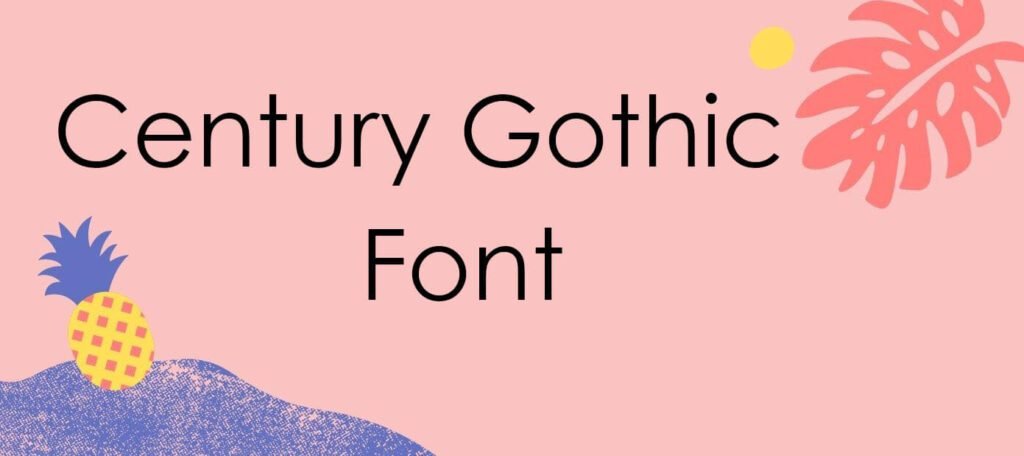
Century Gothic Font is a sans-serif typeface that has been highly used for advertisement purpose since it releases. It is an elegant typeface that is based on an extended Gothic family. The font family came into being many years ago, after which several Versions and styles originated. The Century Gothic font is one of them that is highly used and highly recommended for different purposes.
Sol Hess, a popular typeface designer, designed this font in the late 19302 that was released by Monotype Foundry. Soon after it became public, it became everyone’s Priority and started being used everywhere. The font is designed after being stimulated by the 20th-century typefaces. It comprises a large X-height and provides the best results for advanced Digital systems.
Century Gothic Font History
The Gothic family is one of the main typefaces for the western culture as they highly used this typeface family throughout these years. It emerged as a replacement for the ITC Avant Garde font that was developed by Herb Lubalin, a typeface designer. The font emerged as a competition with another famous Sans-serif typeface, Futura font.
It is a solely advanced typeface that has never been made as a metal kind. The sans-serif typeface was released in 1991 that contains different characters and weights, including Bold, Regular, Italic, Condensed, Bold Italic, etc. It is one of the unique sans-serif typefaces that has released different additional versions with better features and characteristics.
You can also come across many alternatives to this font, including Clarity Nuvo font, Bergen Grotesk Font, and a few others. They contain many similarities and can be used instead of the Gothic typeface. This font used less ink as compared to other typefaces. According to research, less than 30% ink is used as compared to Ariel font. The font can be downloaded in many formats, including TTF and OTF.
| Name | Century Gothic Font |
| Designer | Sol Hess |
| Foundry | Monotype Imaging |
| Type | Sans-serif |
| Date Released | 1991 |
Usage Of Century Gothic Font
It is a notable font to be used for Advertisement and publishing purposes. It is a clean and clear design that makes the small size text readable, so that’s why it is highly used for such purposes. During teaching languages, you might have noticed this font being used in one way or another. Let’s highlight those platforms where this typeface has been used all these years.
1- Educational Platform
In 2020 the NOOCA institute got their hands on this font for the annual Gala. In many educational institutes, this font was highlighted and remained a primary font during educational programs. You can also use the font in your assignments and other purposes.
2- Entertainment
If you are a video game lover, you might have noticed this font in different online video games. A classic Arcade game Q*Bert used this font in the past. It was also used on the cover of the Book series Sveva in the past. The book was published from 2015 to 2018.
An American Pop band, Maroon 5, also used this font. Previously their used Futura Medium that was later replaced by Century Gothic. The font was also featured in Jessica McClintock’s ads in the past. Daft Punk’s Electroma also used this font along with Futura font.
3- Others
The font was highlighted on the banner of ‘Black Lives Matter.’ Stephen Hough, a notable typeface designer, used this font on a collection of essays regarding Arts and music. It has a wide list where this font was spotlighted and took all the attention.
You can use this typeface in your designs, Projects, Products, Titles, Headings, Publishing platforms, Advertisements, Banners, and on every possible platform. It makes the design look appealing and make the small size text readable and legible.
Century Gothic Font View
Century Gothic Font Family (Includes 4 Styles)
- Century Gothic
- Century Gothic Bold
- Century Gothic Bold Italic
- Century Gothic Italic